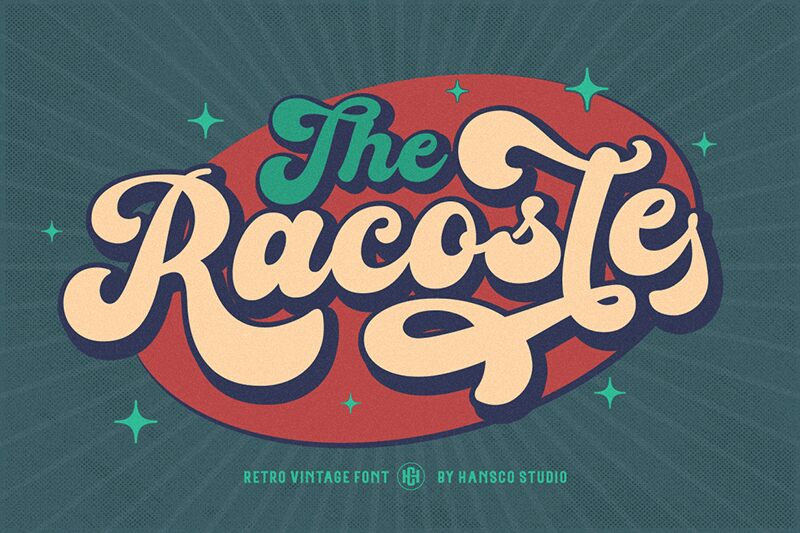
Racoste font is a retro brush typeface from HansCo that is large, expressive and stylish. This bold font has an almost exaggerated slant angle that adds to its intensity, and instantly catches the readers’ attention. Its elegant curves, smooth flow and round finish make it aristocratic and suitable for use in some of the most special projects out there.
Use Racoste in branding visual identities for luxurious restaurants or fashion boutiques, packaging toiletries & makeup items, title magazines setups, movie posters designs and book cover designs. The free font works too for quotes posters editing and social media posts banners.